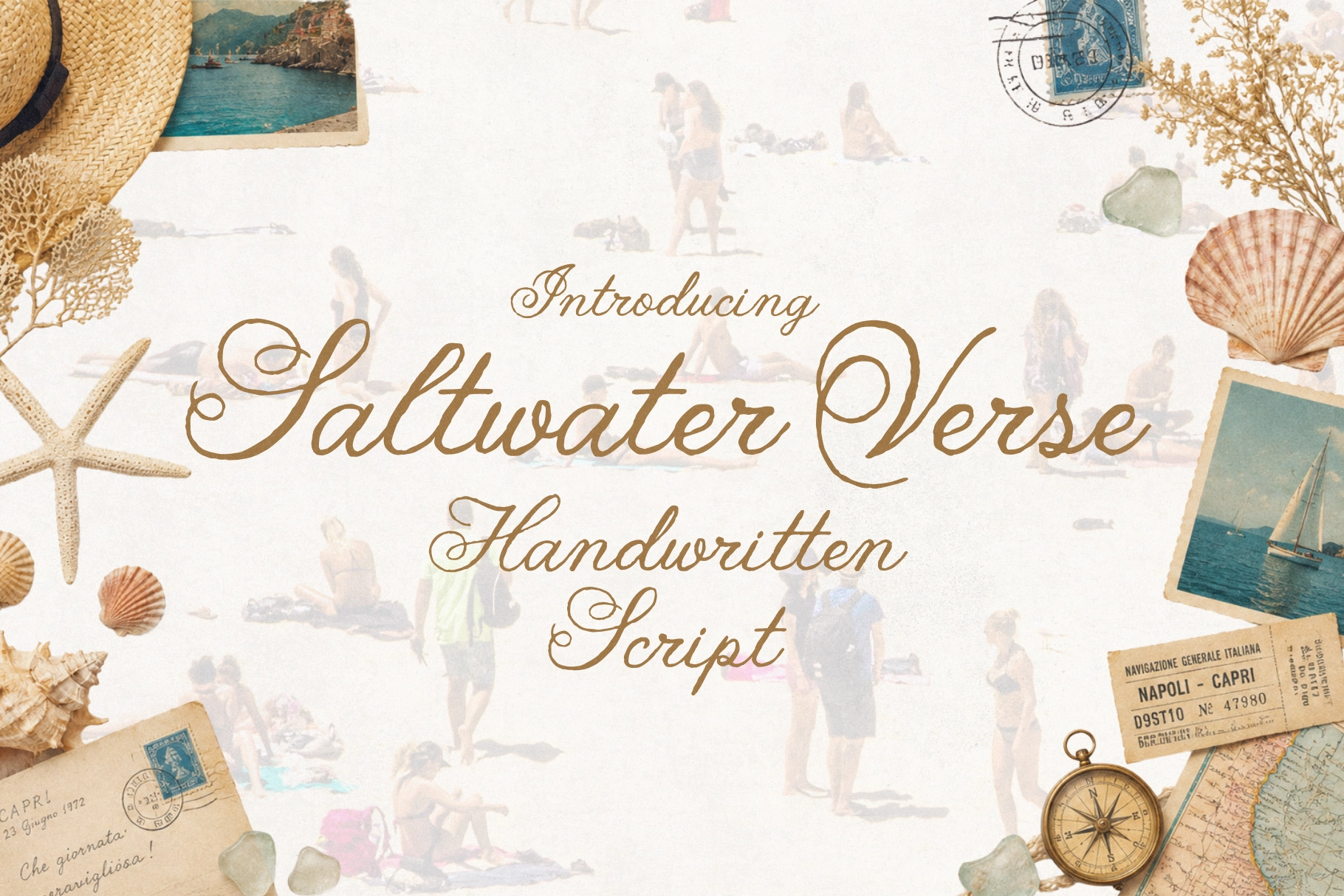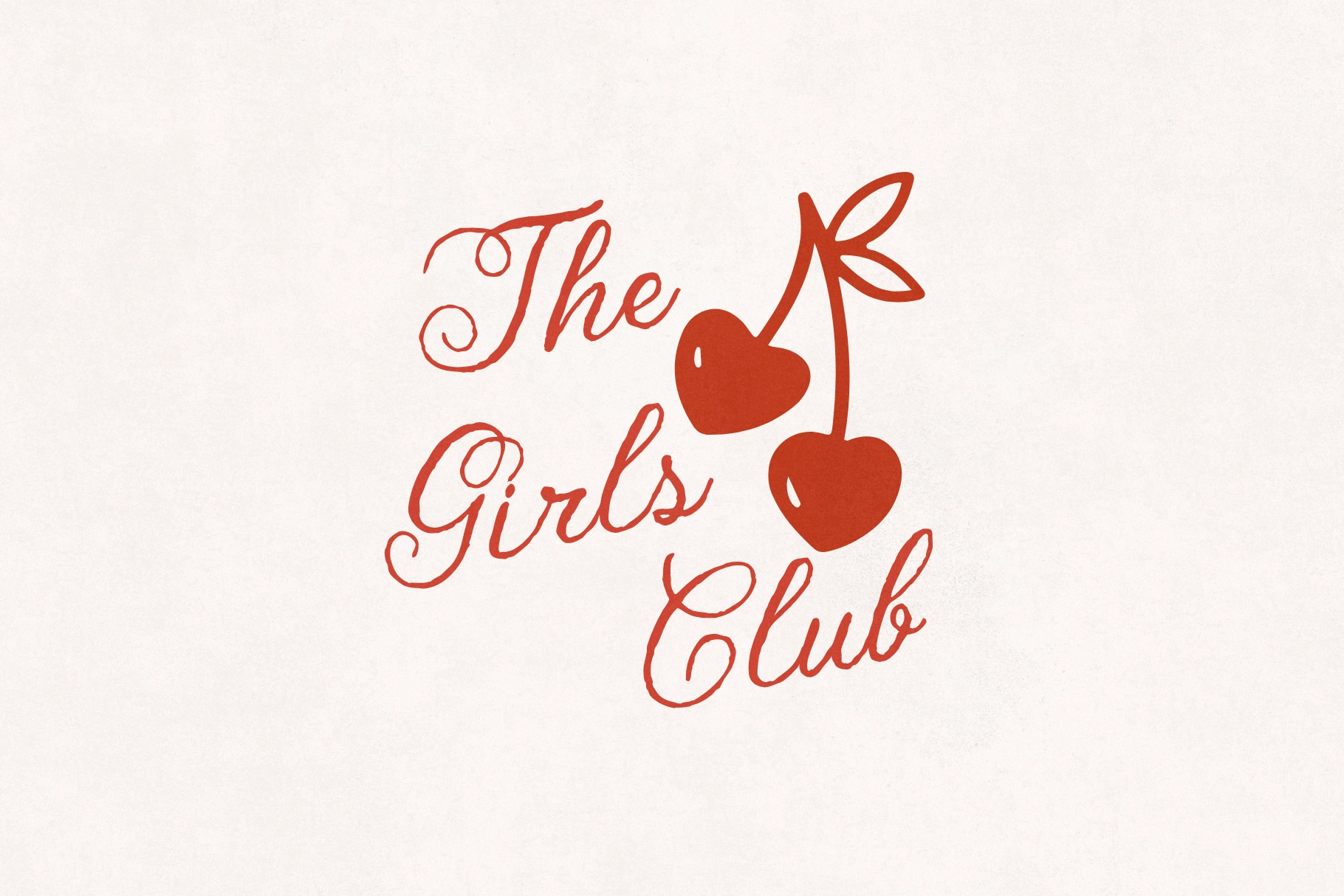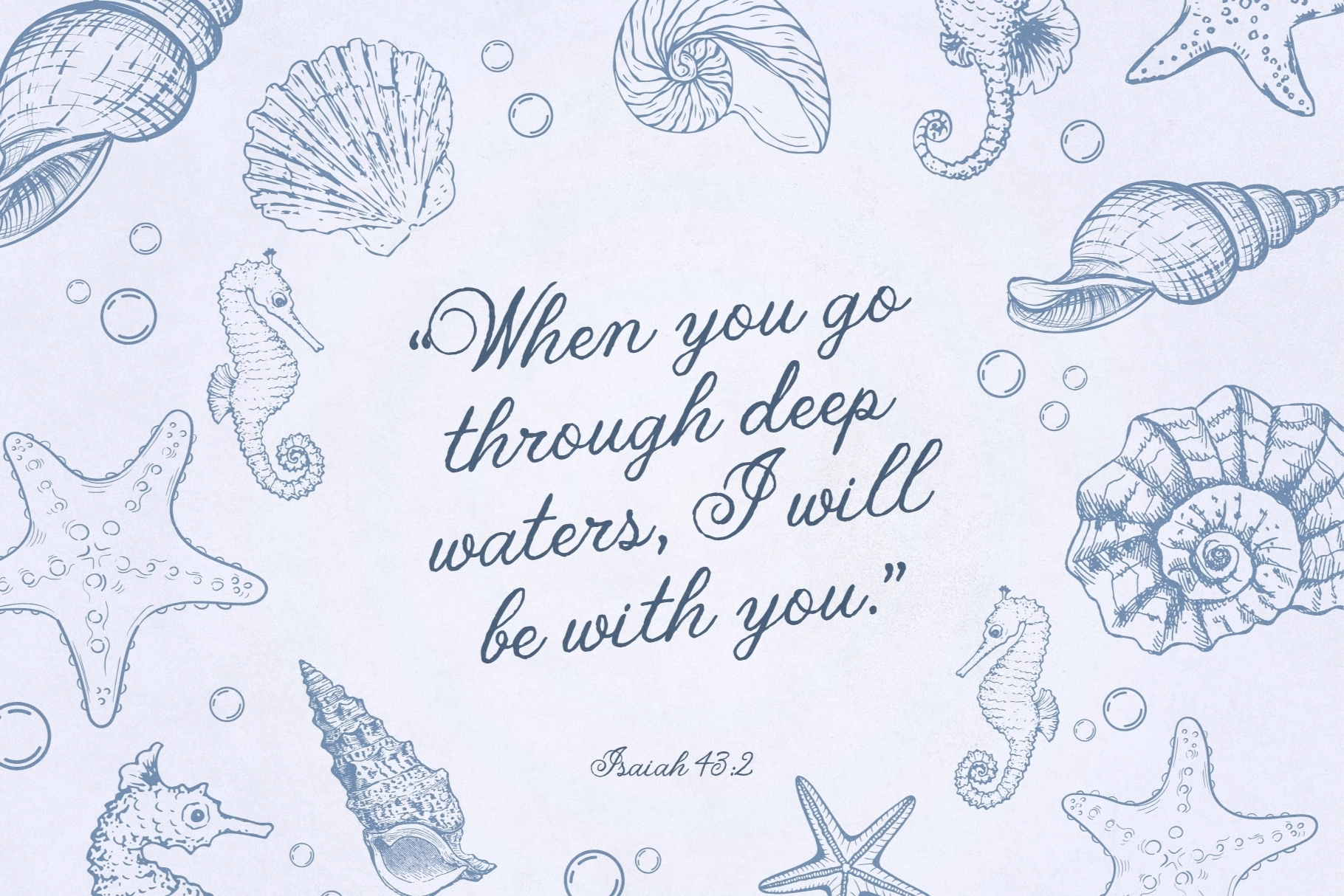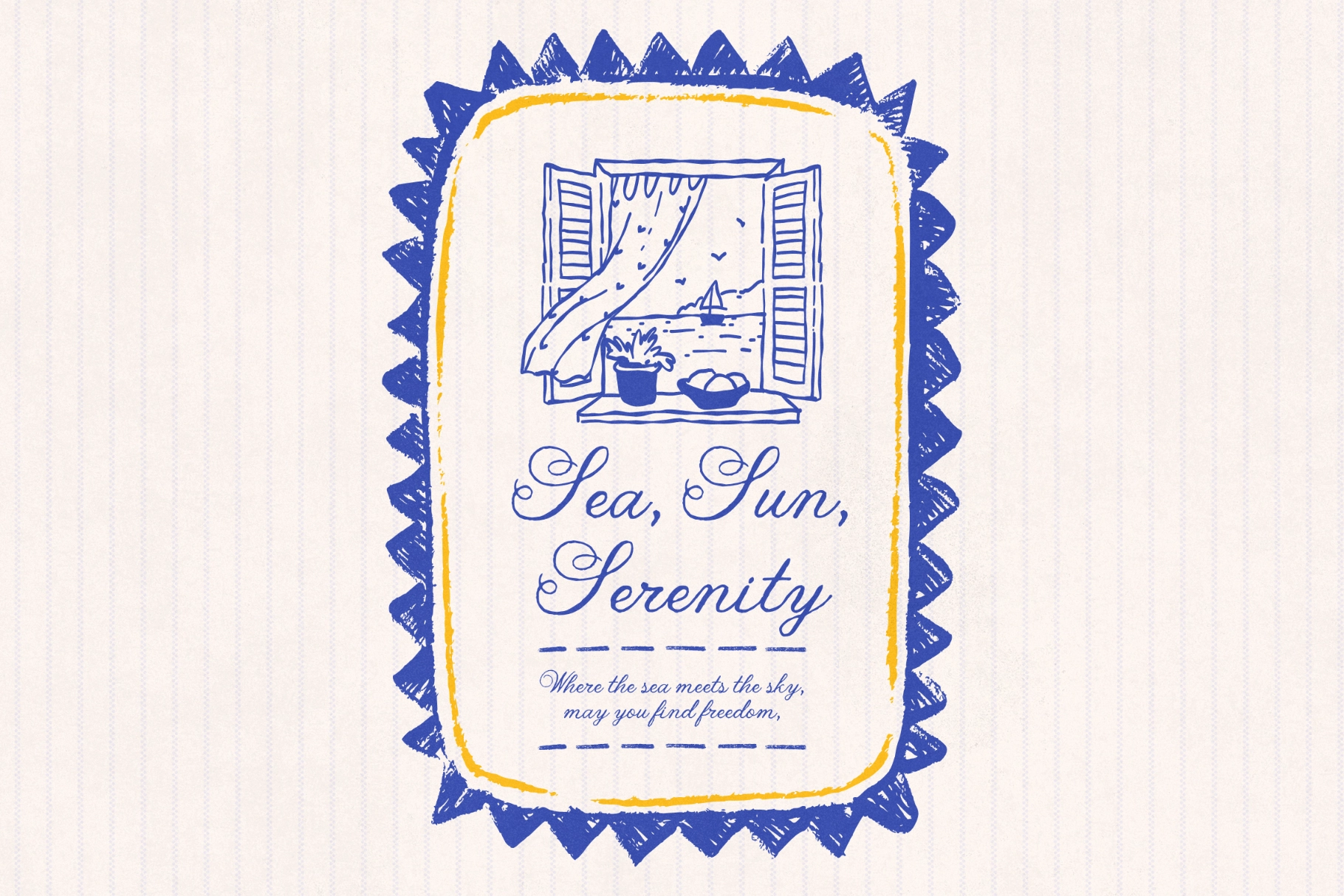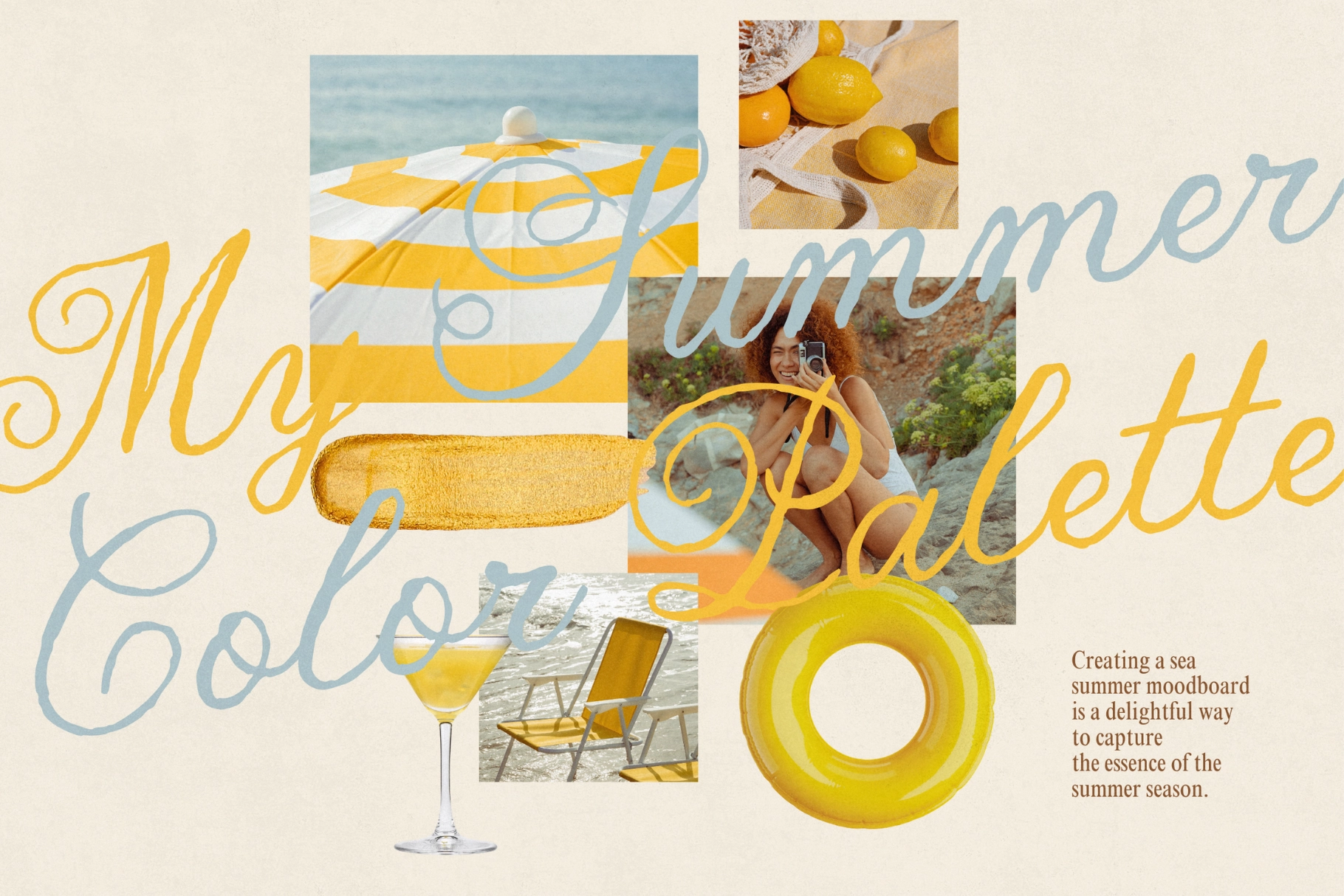
Saltwater Verse - Vintage Handwritten Script Font
Saltwater Verse is a vintage script font built on faded postcards and sun-bleached travel snapshots, with rough, uneven strokes that never fully close a loop the same way twice. The letters lean and wobble like ink that dried in salt air, closer to a diary entry scrawled on a ferry than a studio calligraphy set.
A set of alternate characters lets the same word read differently line to line, so long passages avoid the stamped, repetitive look common to script fonts. Use it for coastal branding and packaging, wedding invitations, travel posters, café menus, postcards and journals, book covers, apparel graphics, and social media graphics, and more.
• uppercase & lowercase;
• numerals, punctuation & symbols;
• alternate characters for varied, non-repetitive lettering